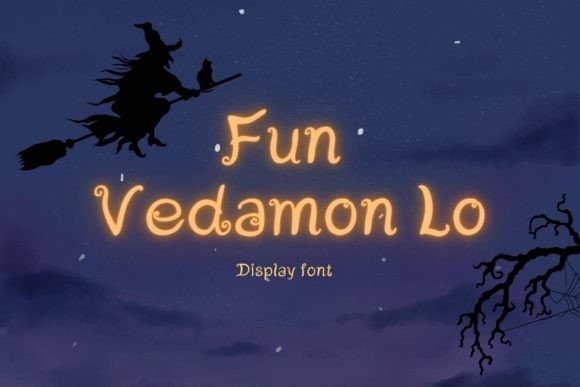
Step into the world of Fun Vedamon Lo, a display font that sparks the playful spirit of birthdays! Designed by the talented TanoiCartoonist, this font is not just a string of characters; it's a party in your designs.
Fun Vedamon Lo is a display font with a quirky personality that adds a dash of joy to any occasion. Its unique charm makes it the perfect choice for creating eye-catching birthday banners, invitations, greeting cards, and more. Its playful nature effortlessly conveys the excitement and happiness associated with birthdays, making it an ideal choice for those looking to add a vibrant touch to their designs.
With Fun Vedamon Lo, you can effortlessly create designs that evoke the spirit of celebration, leaving a lasting impression on your audience. Its versatility extends beyond birthday-themed designs, making it suitable for a range of creative projects where a touch of whimsy and individuality is desired.
Embrace the magic of Fun Vedamon Lo and let your designs burst with the joy of birthdays. Experience the difference a captivating font can make, and watch as your designs take center stage, radiating the spirit of celebration with every stroke.